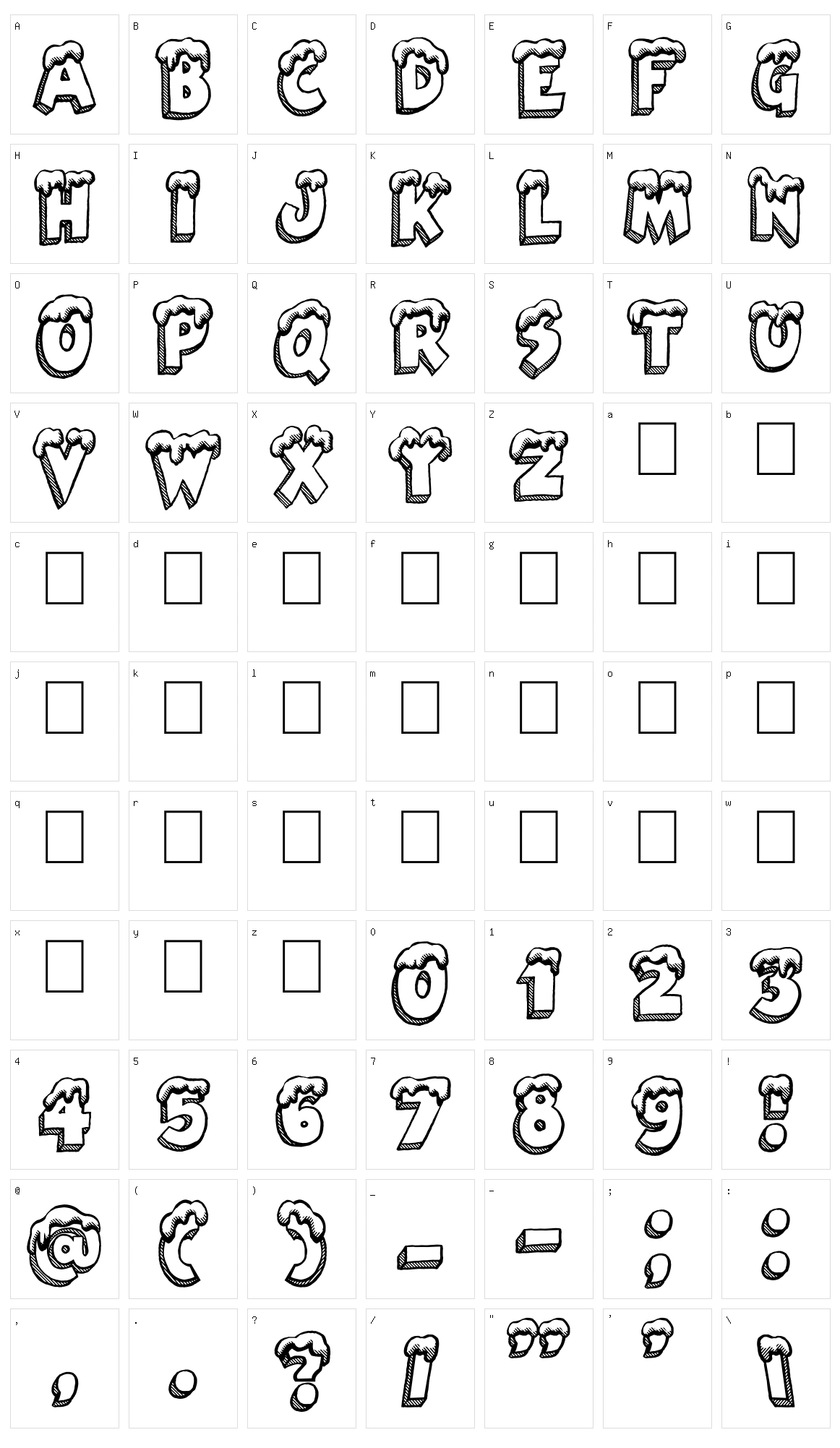
The free font Santa's Air Mail is carefully designed by imagex, showcasing a thoughtful balance of creativity and usability and falls under the Christmas font style. When you download the ZIP file, it contains only 76.41 KB of font files, making it lightweight and quick to download. Please review the license details below to understand permitted usage and distribution rights. If license information is not available, we recommend using this font for personal projects only or contacting the author directly for commercial usage permissions.